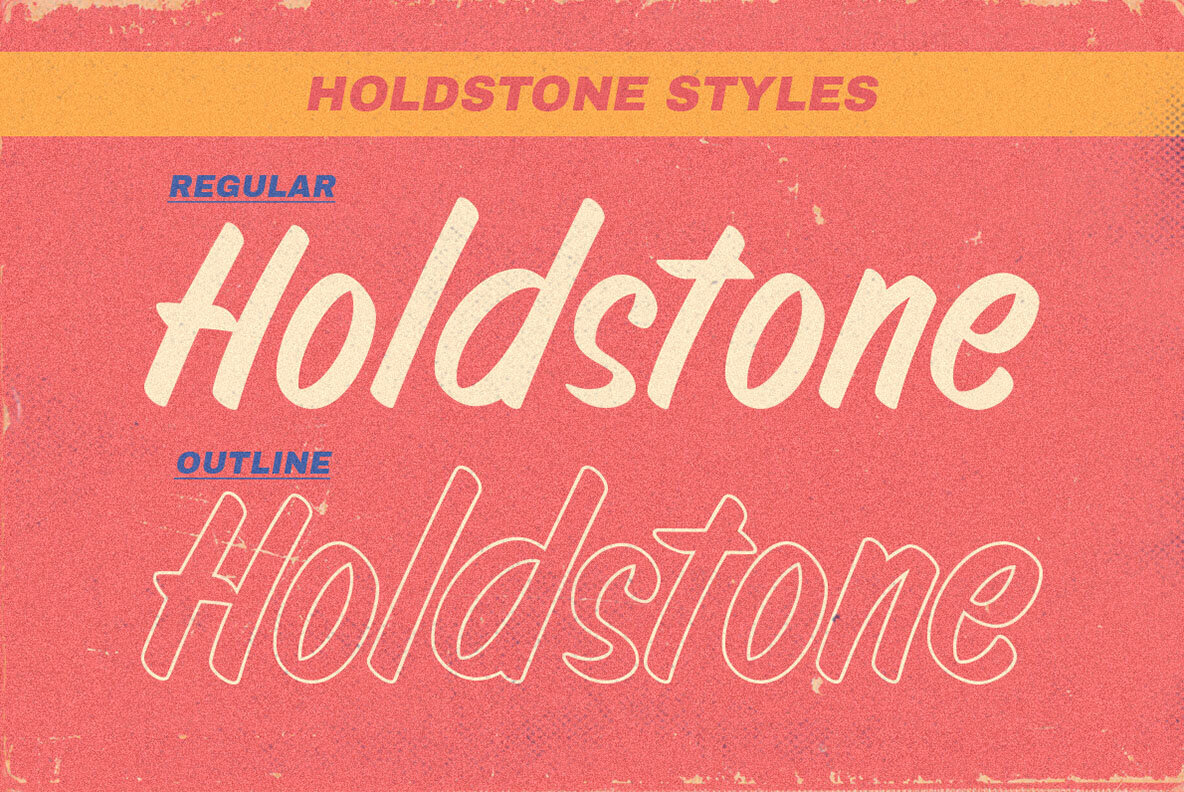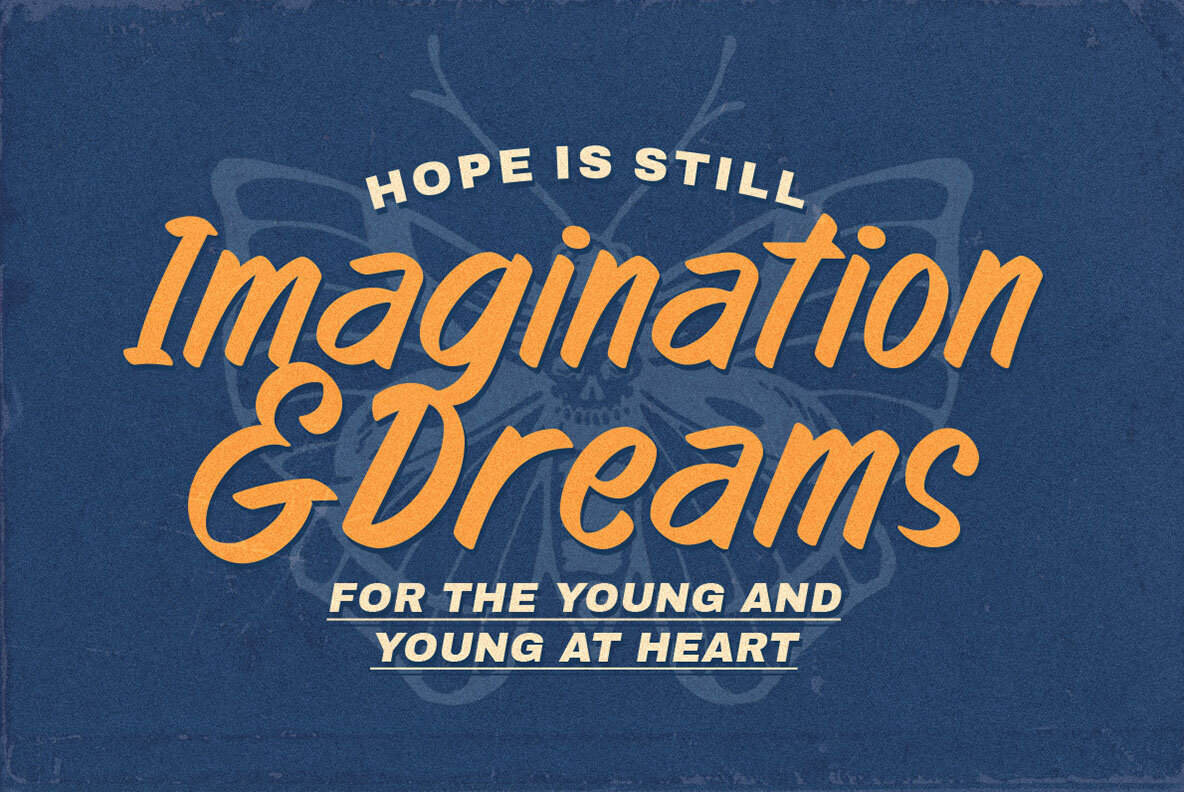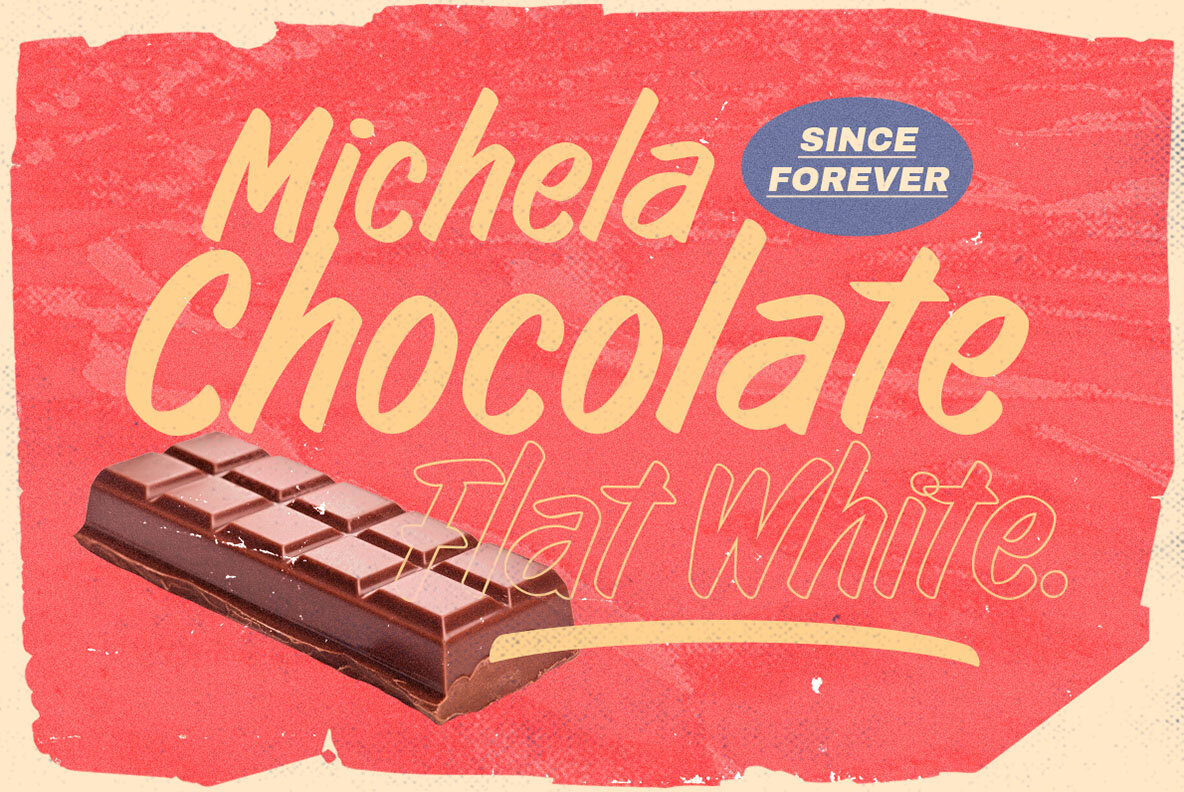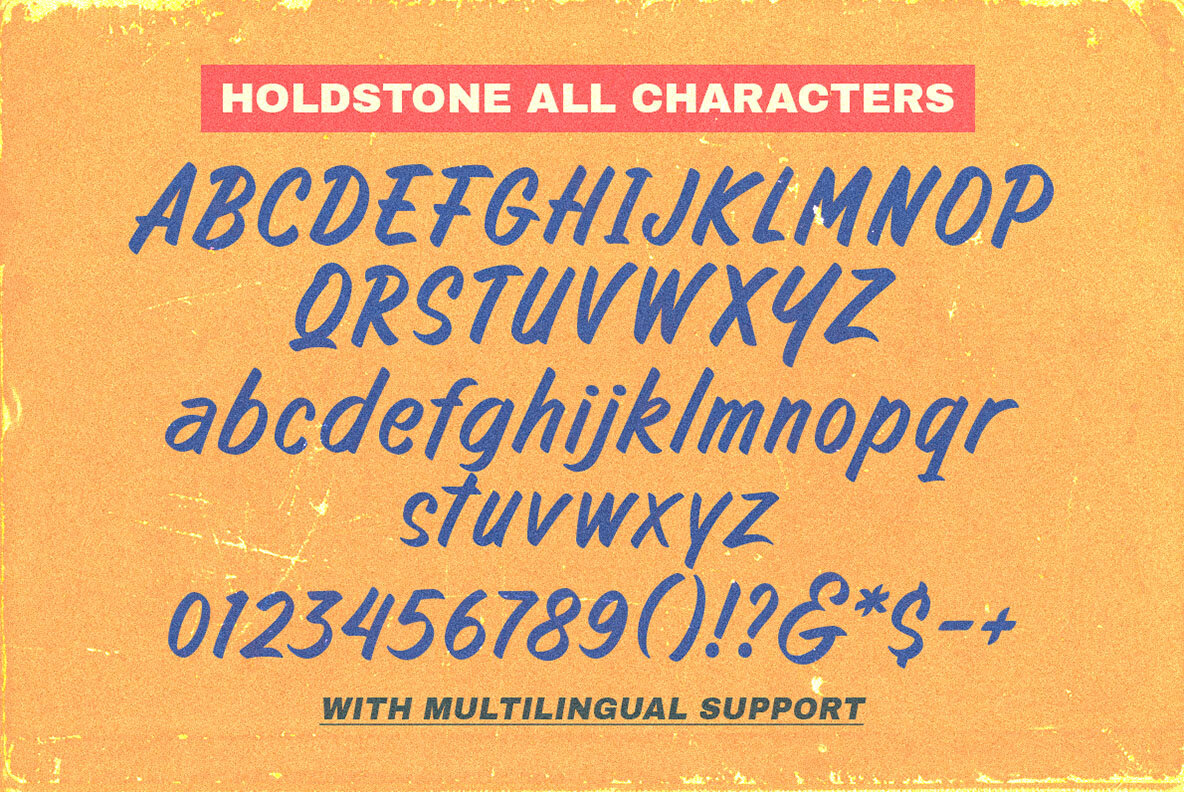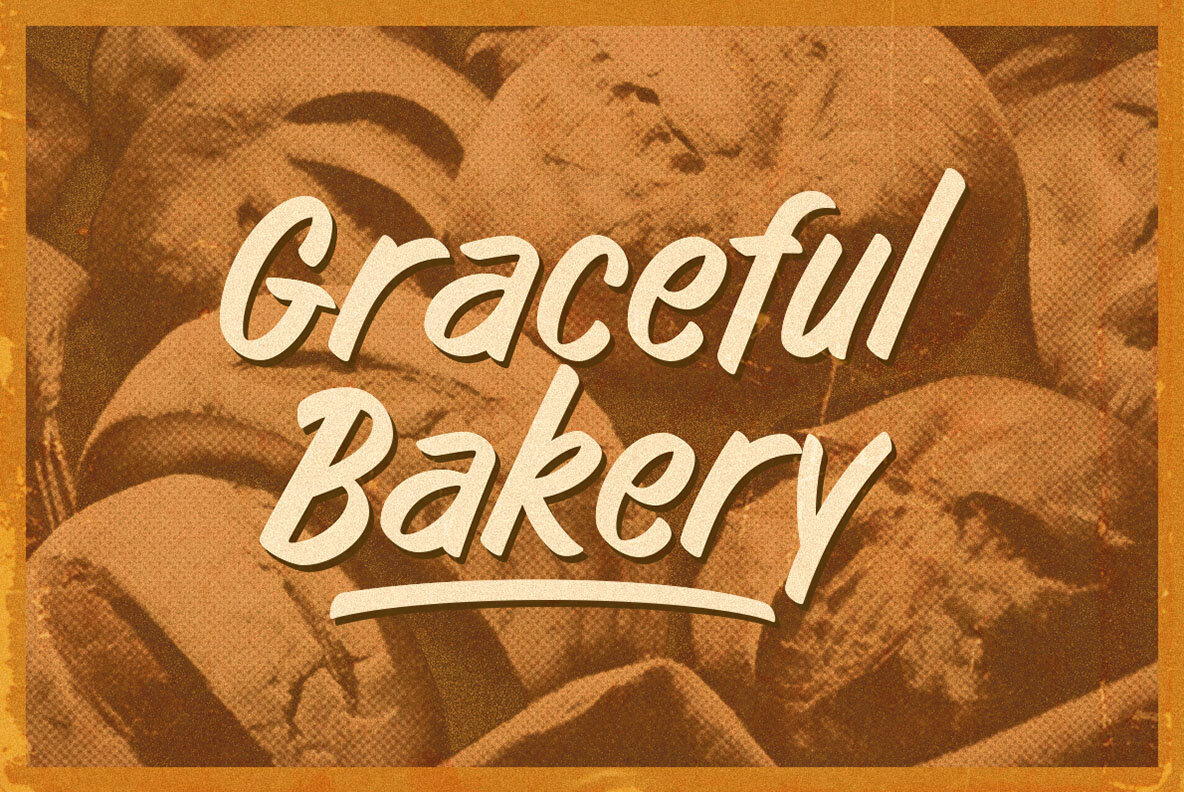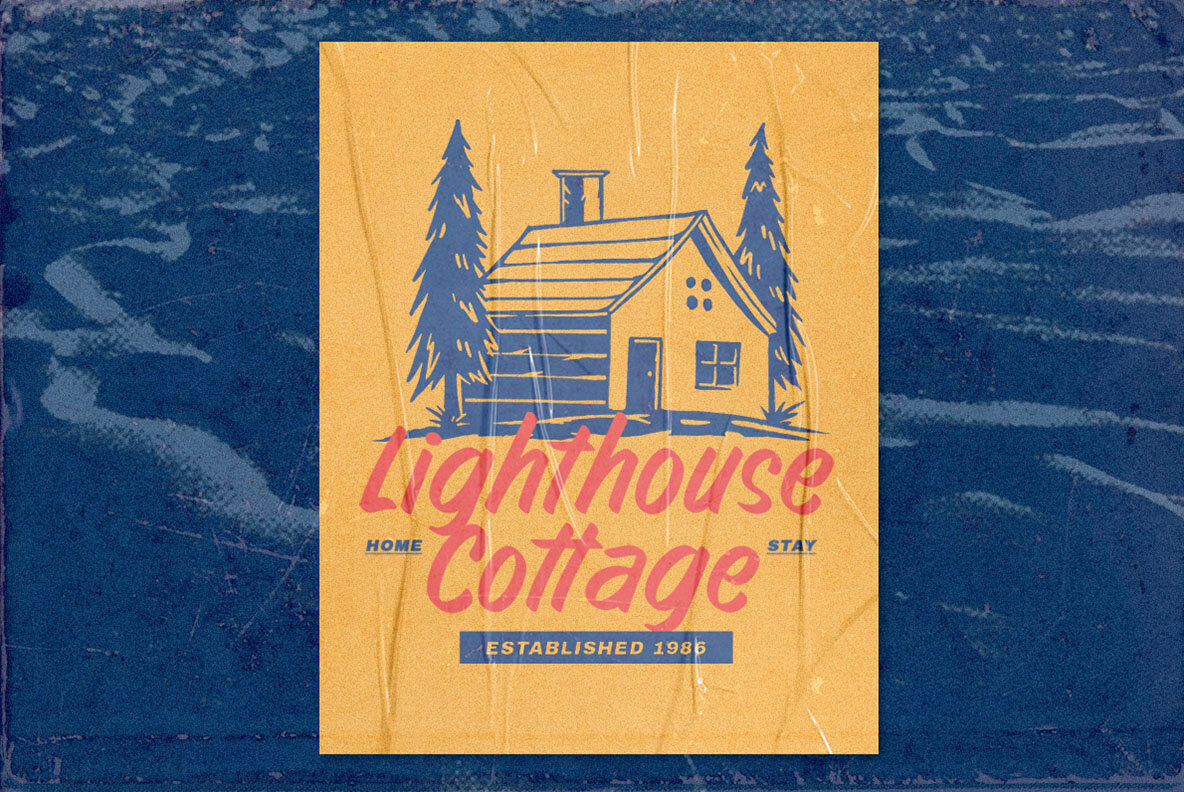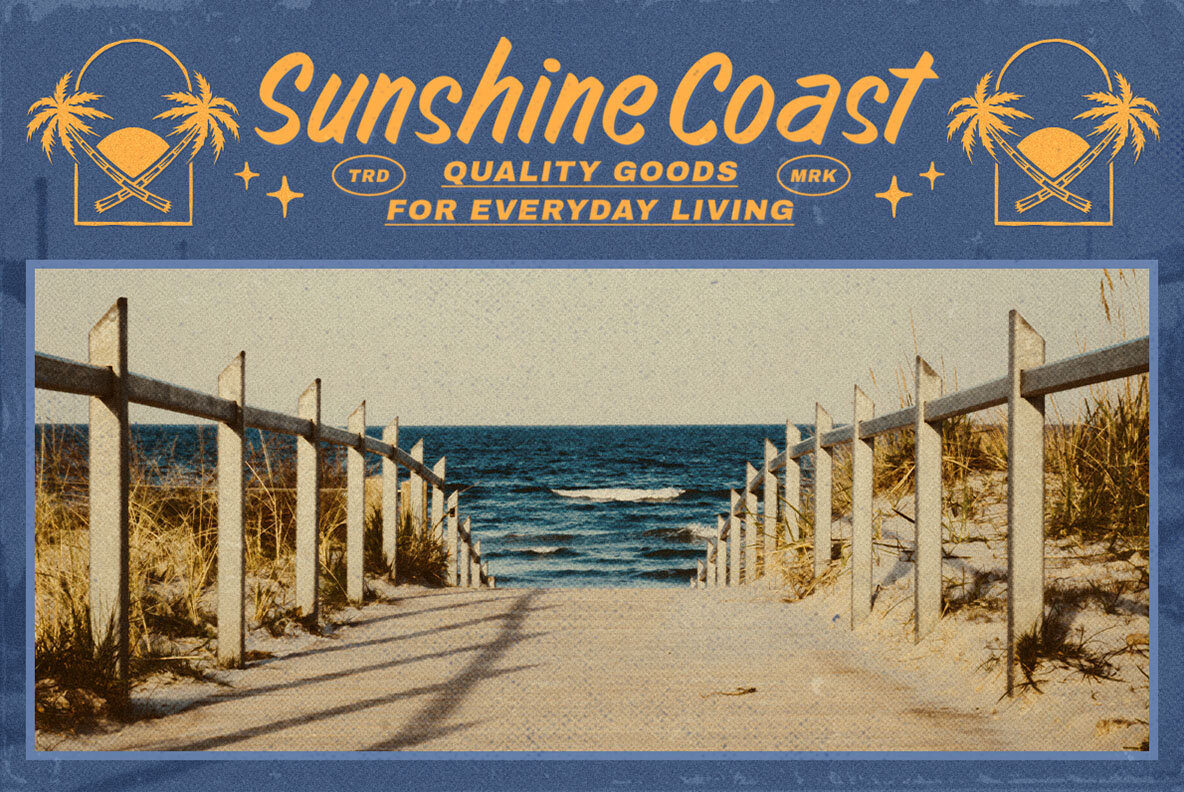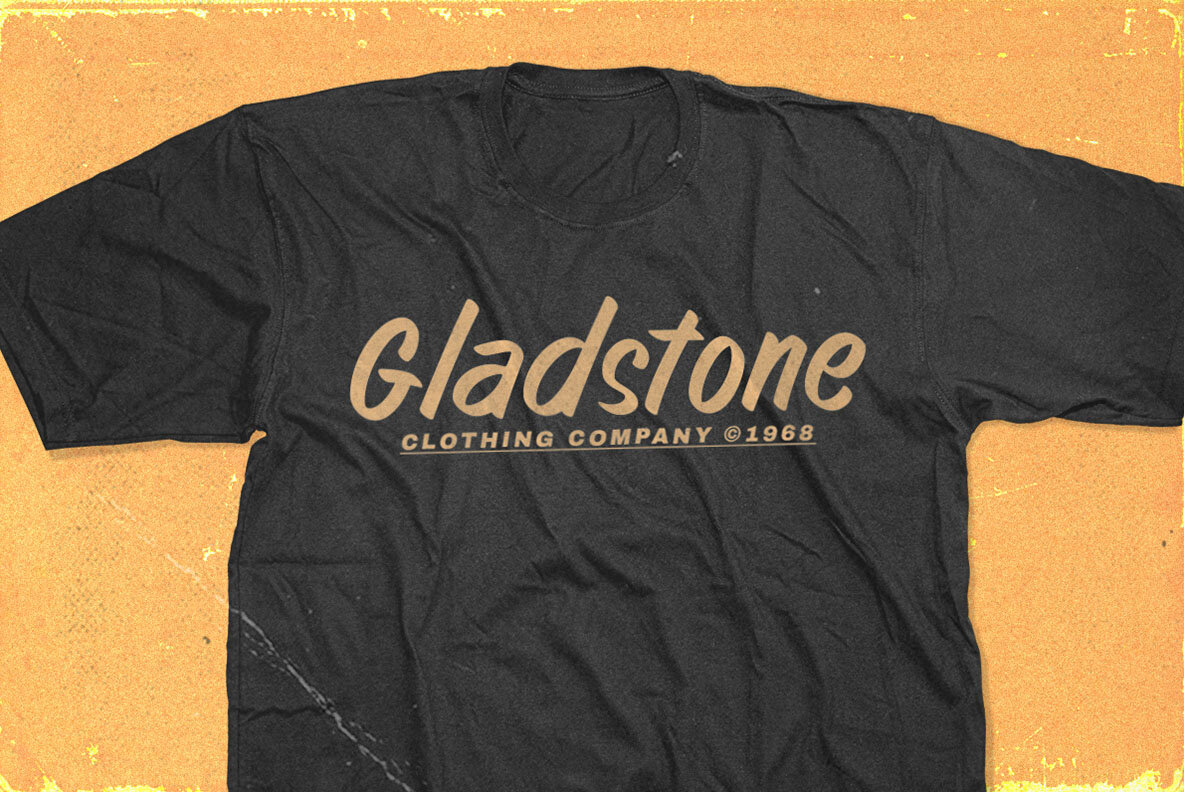
Holdstone Font
Holdstone is a handcraft brush font which is purposely made for headline, display or logotype and the other various formal forms such as invitations, labels, logos, magazines, books, greeting / wedding cards, packaging, fashion, make up, stationery, novels, labels or any type of advertising purpose.